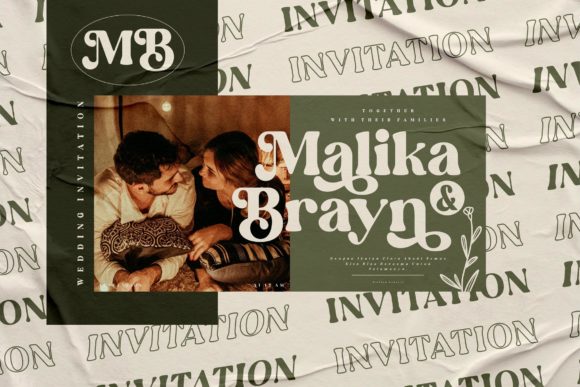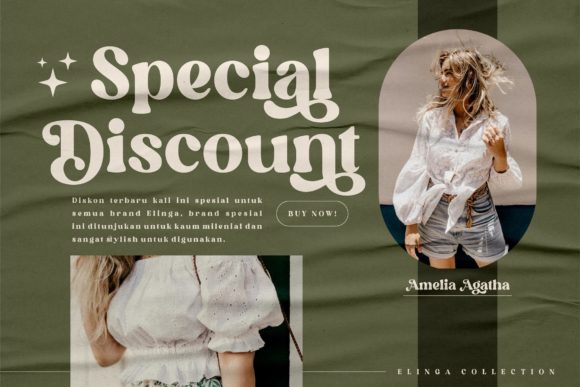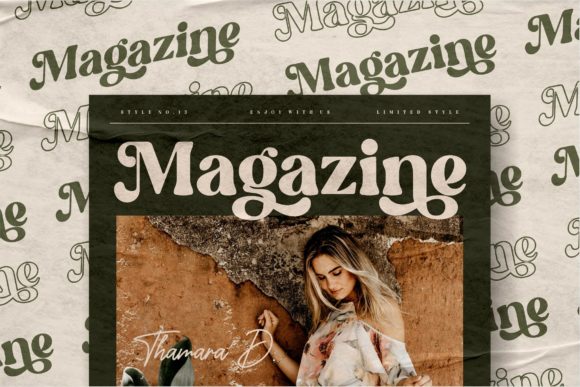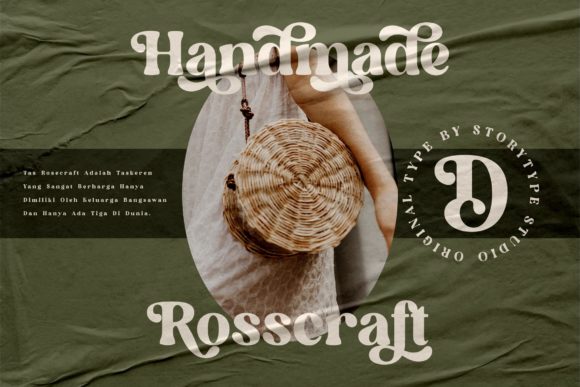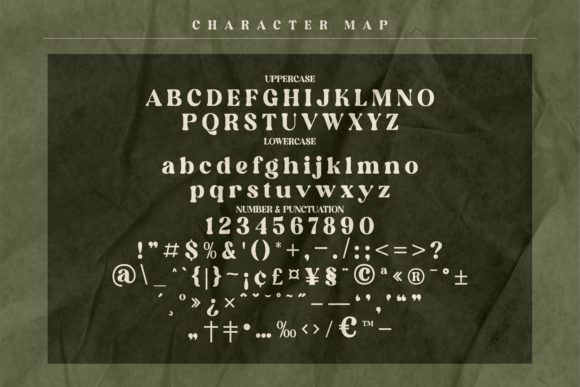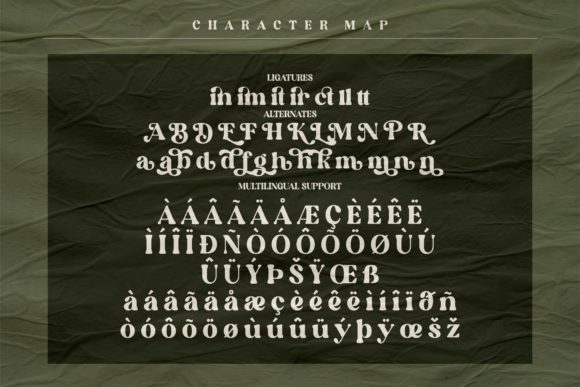
Introducing Elinga Font: The Bold, Stylish, and Thick Lettered Serif Font
Are you a designer or crafter looking for a font that can add a touch of elegance and sophistication to your creations? Look no further than Elinga Font, a bold, stylish, and thick lettered serif font that is sure to take your designs to the next level. In this article, we’ll take a closer look at Elinga Font, its features, and how you can use it to enhance your favorite projects.
What is Elinga Font?
Elinga Font is a serif font that is characterized by its bold, stylish, and thick lettering. It’s perfect for designers and crafters who want to add a touch of luxury and sophistication to their creations. Whether you’re working on a branding project, a website design, or a craft project, Elinga Font is sure to make a statement.
PUA Encoding: What Does it Mean?
One of the standout features of Elinga Font is that it’s PUA (Private Use Area) encoded. But what does that mean? In simple terms, PUA encoding allows you to access all of the glyphs and swashes in the font with ease. This means that you can use the font to create beautiful and intricate designs without having to worry about complicated coding or technical issues.
Features of Elinga Font
So, what makes Elinga Font so special? Here are just a few of its key features:
- Bold and Stylish: Elinga Font is a bold and stylish font that’s perfect for making a statement.
- Thick Lettering: The font features thick lettering that’s sure to grab attention.
- PUA Encoded: Elinga Font is PUA encoded, making it easy to access all of the glyphs and swashes.
- Serif Font: The font features classic serif lettering that’s perfect for adding a touch of elegance to your designs.
How to Use Elinga Font
So, how can you use Elinga Font in your designs? Here are a few ideas to get you started:
- Branding Projects: Use Elinga Font to create bold and stylish logos, business cards, and other branding materials.
- Website Design: Add Elinga Font to your website design to create a bold and eye-catching header or title.
- Craft Projects: Use Elinga Font to create beautiful and intricate craft projects, such as handmade cards, scrapbooking pages, and more.
Tips for Using Elinga Font
Here are a few tips for using Elinga Font in your designs:
- Experiment with Different Sizes: Don’t be afraid to experiment with different font sizes to find the one that works best for your design.
- Pair with Other Fonts: Try pairing Elinga Font with other fonts to create a unique and eye-catching combination.
- Use the Swashes: Don’t forget to use the swashes and glyphs in Elinga Font to add a touch of elegance and sophistication to your designs.
- What is Elinga Font? Elinga Font is a bold, stylish, and thick lettered serif font.